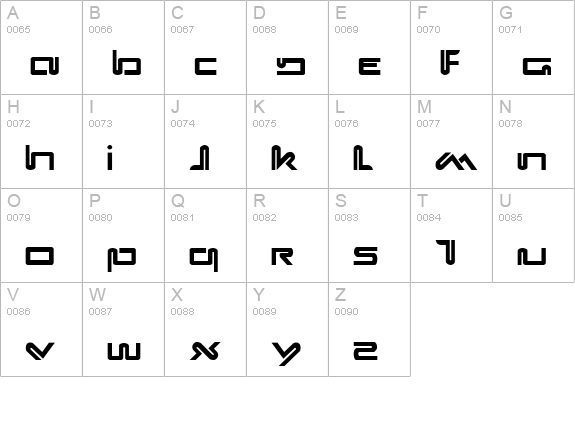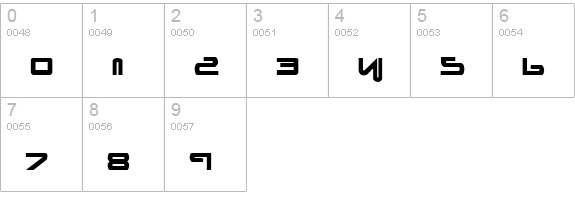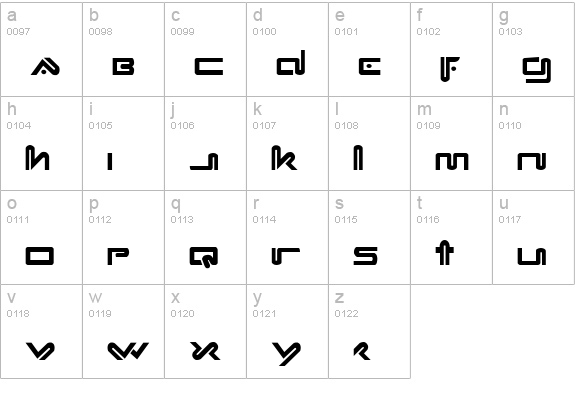
Xephyr font is a modern and stylish typeface that exudes elegance and sophistication. With its clean lines and sleek design, Xephyr is perfect for a wide range of design projects, from branding to editorial to web design. This versatile font is sure to add a touch of class to any project. The best part? Xephyr font is completely free to download at FontsMarket.com. This means you can access this beautiful typeface without any cost, making it perfect for both personal and commercial use. Don't miss out on the opportunity to enhance your designs with the stunning Xephyr font – download it today and take your projects to the next level!